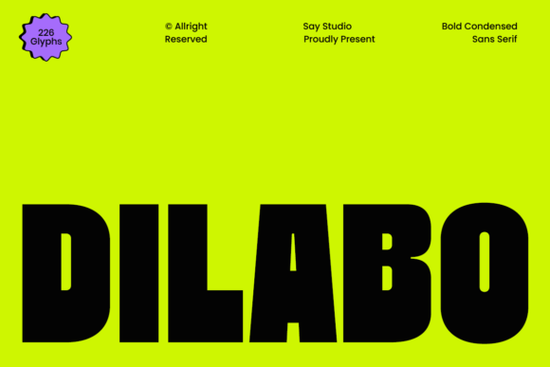
If you need a typeface that demands attention without taking up too much horizontal space, the Dilabo Font is a strong choice. This bold condensed sans serif is built specifically for modern branding, streetwear, and high-impact display designs. Its tall proportions and thick letterforms give it an urban personality that works perfectly for designers, print-on-demand sellers, and small business owners looking to make a statement.
What makes a condensed sans serif useful for modern branding?
When you are designing a logo or a poster, space is often limited. A condensed typeface allows you to fit more characters on a single line while keeping the text highly readable. If you are exploring different options for your next project, you might want to check out this collection of great sans serif options to see how different weights and widths affect your layout. Dilabo stands out because it balances thickness with a clean geometric structure, preventing the letters from looking muddy or cramped when scaled down.
Where should you use bold, thick letterforms?
The aggressive yet clean style of this typeface makes it ideal for projects that need to grab attention quickly. It works beautifully whether you are building a futuristic brand identity, creating retro-inspired posters, or designing energetic sports visuals. Here are a few practical ways to apply it:
- Streetwear and Apparel: Perfect for t-shirt graphics and hoodie prints where a loud, confident look is required to stand out in a crowded market.
- Sports Branding: The heavy weight gives a sense of strength and energy, making it ideal for team logos, athletic event posters, and merchandise.
- YouTube Thumbnails: The condensed shape lets you write longer, punchier titles that remain completely legible on small mobile screens.
- Packaging Design: Helps product names establish a strong visual hierarchy on crowded retail shelves.
How does it compare to other display typefaces?
Many heavy display fonts lose their readability when used in smaller sizes or when placed too close together. Because of its solid geometric foundation, this typeface maintains its structure even when you adjust the spacing. You can also experiment with slight overlapping effects, as the clean edges prevent the design from becoming messy. If you are building a cohesive brand identity and need to pair it with other styles, reviewing this detailed look at the font can help you understand its specific character shapes and kerning. It pairs exceptionally well with simple, neutral sans serifs for body text, creating a sharp contrast between your headlines and paragraphs.
Quick tips for getting the best results
- Adjust the tracking: Give the letters a little extra breathing room if you are using all-caps for a main headline.
- Pair it wisely: Use a lighter, simpler font for your body copy to let the heavy headlines do the visual work.
- Test on mobile: Always preview your social media graphics or thumbnails on a phone screen to ensure the thick strokes do not bleed together at smaller sizes.